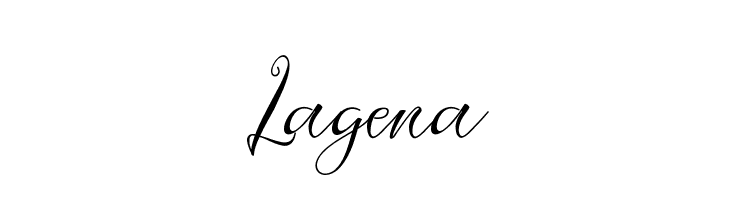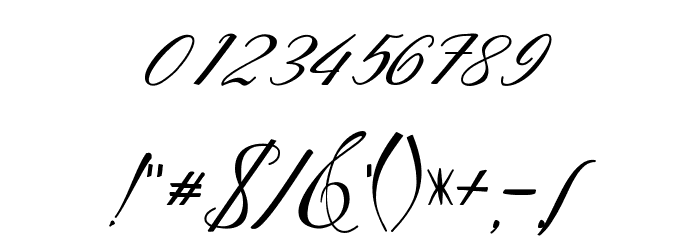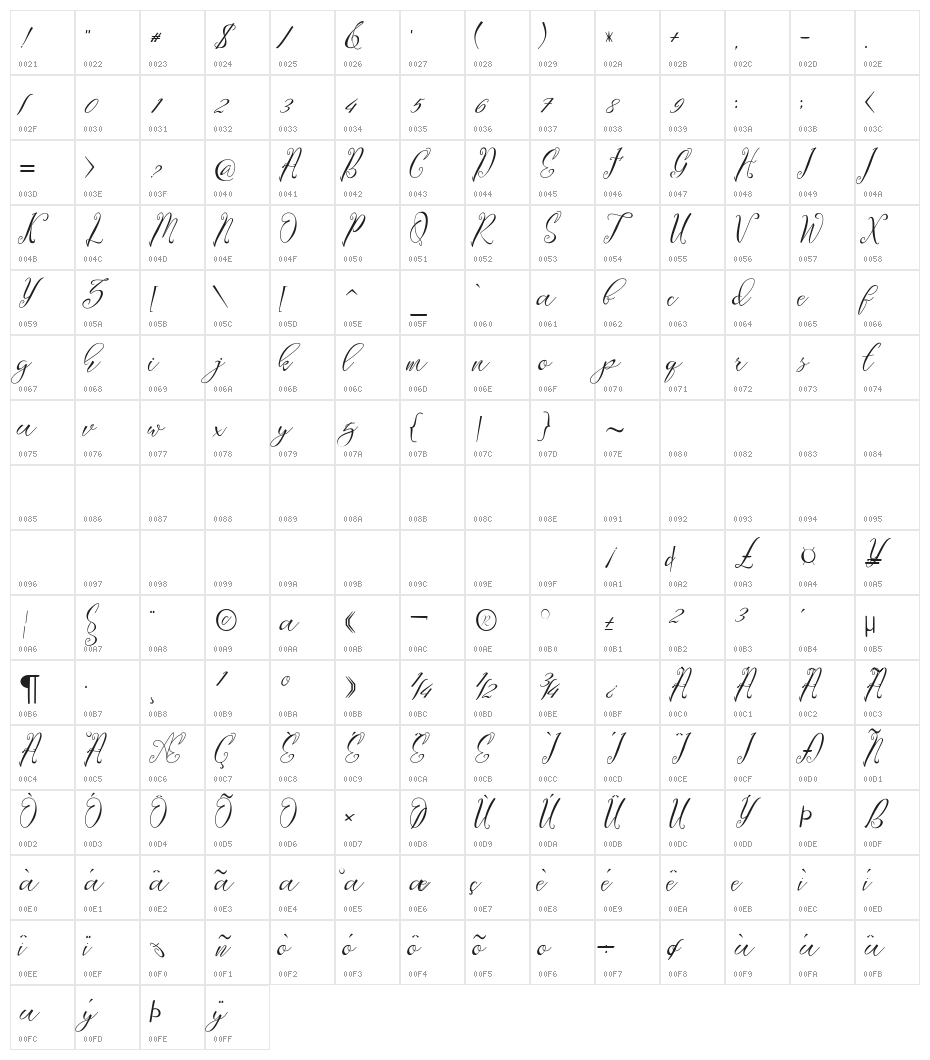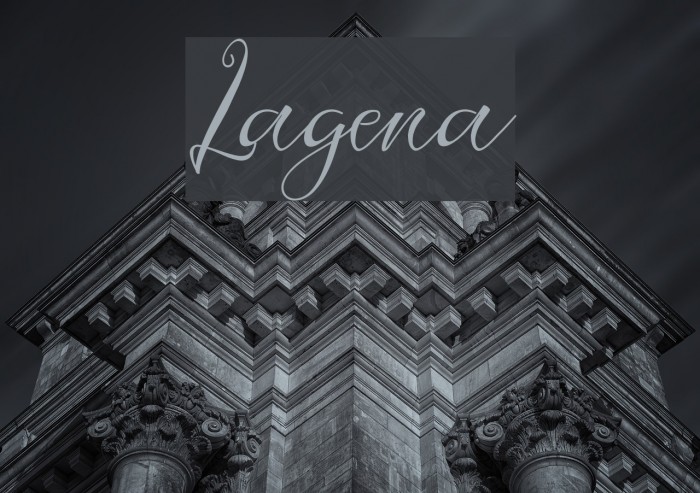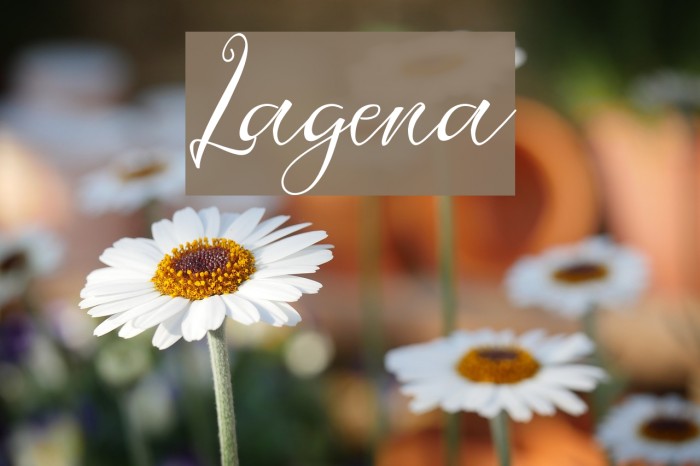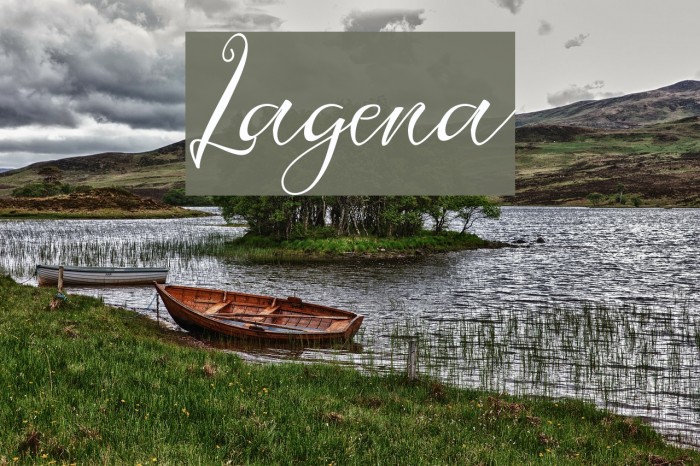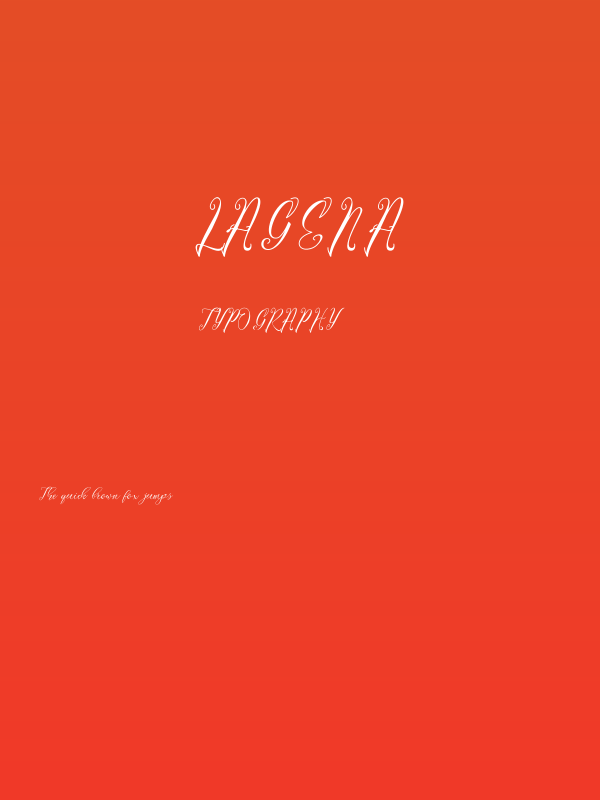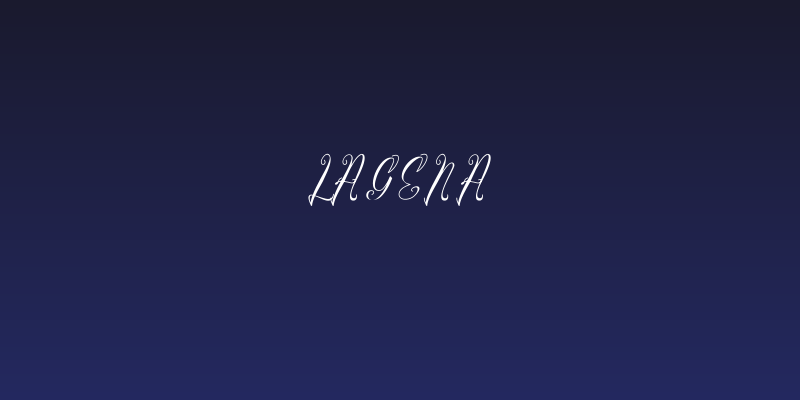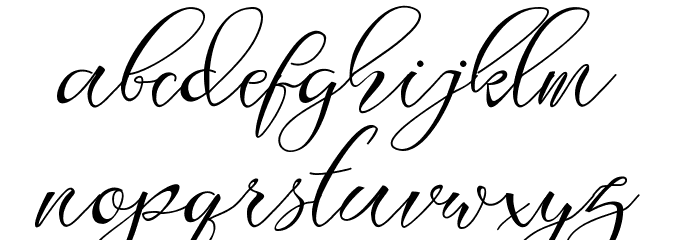
Lagena Font
Lagena Description
This elegant script font features a flowing, cursive style with intricate swirls and flourishes. The uppercase letters are particularly ornate, with extended loops and decorative elements that give them a sophisticated appearance. The lowercase letters maintain a smooth, connected flow, enhancing readability while retaining an artistic flair. Numbers and special characters are designed with similar attention to detail, ensuring consistency across the typeface. The overall design exudes a sense of elegance and refinement, making it suitable for formal and decorative applications.
| Proposed Projects | Ideal for wedding invitations, elegant branding, greeting cards, and high-end product packaging. |